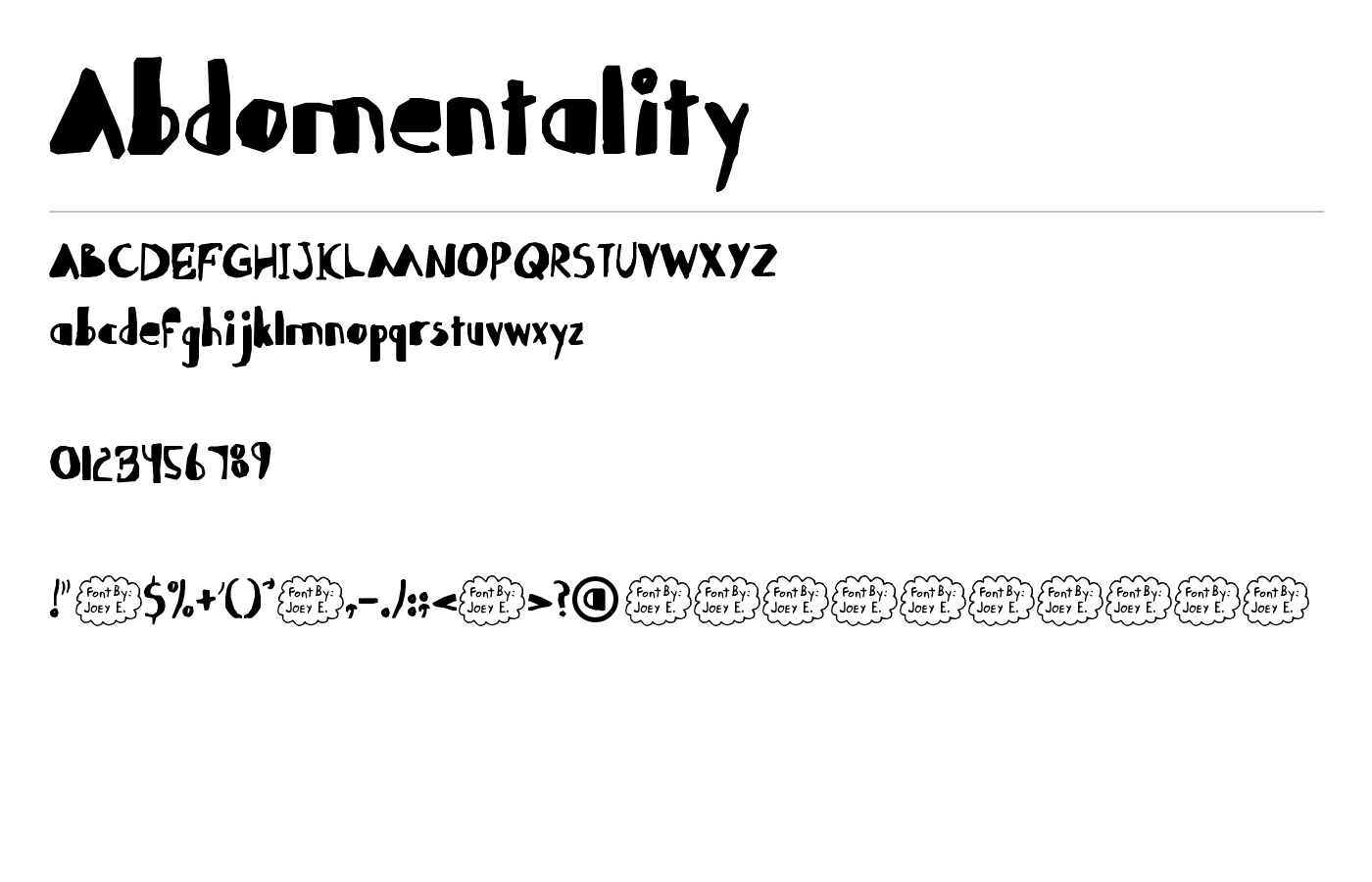
Abdomentality is a bold, playful display font with an irregular, hand-drawn style that gives it a quirky and unique personality. Its uneven letterforms and rough edges convey a casual, creative vibe, making it perfect for fun, informal branding, posters, or any design that seeks to stand out with a distinctive, artistic touch. This font works best in headlines or graphics where character and originality are key.
Abdomentality Font
About Abdomentality Font